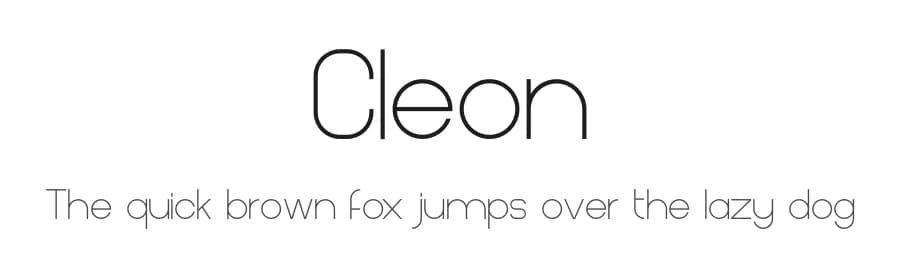
About Cleon Font
Cleon is a sans-serif font designed by FactoryType. It includes 171 glyphs, a regular weight, OTF (CFF) format, and 201 languages. Cleon is free to download; check the license details on this page before commercial use. Sans-serif fonts like Cleon work best for clean body text, user interfaces, branding, and modern layouts.
Cleon Font is a versatile sans-serif font that works for both headings and body text. Pair it with a contrasting serif or slab serif font to add visual interest and a clear distinction between titles and body copy.
Cleon Font